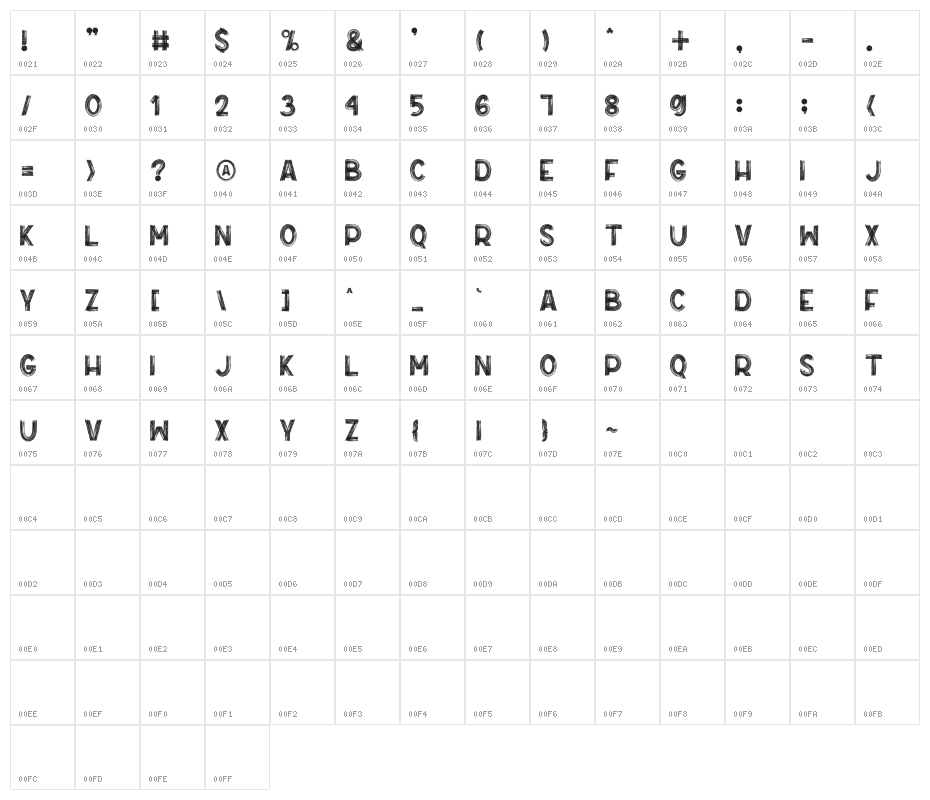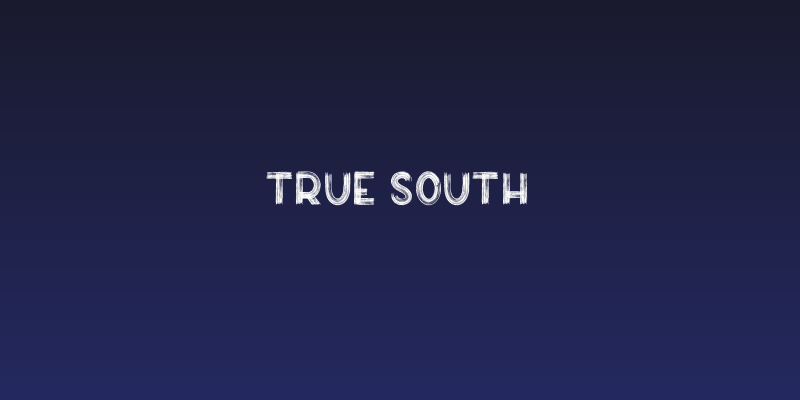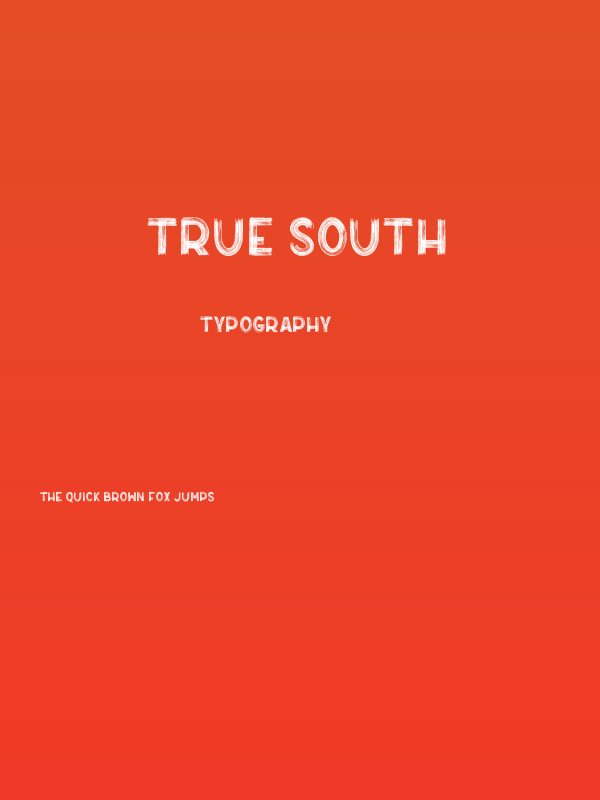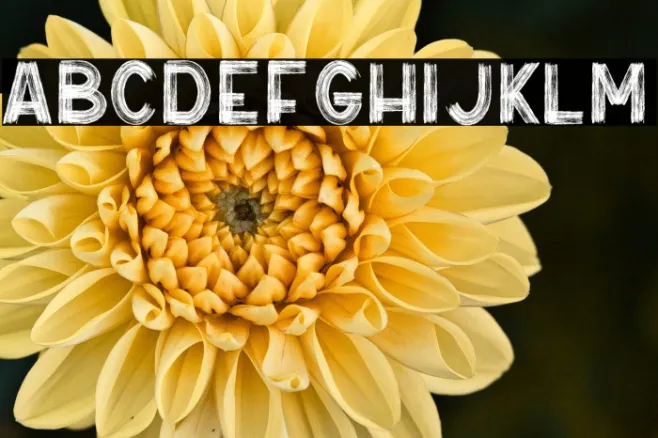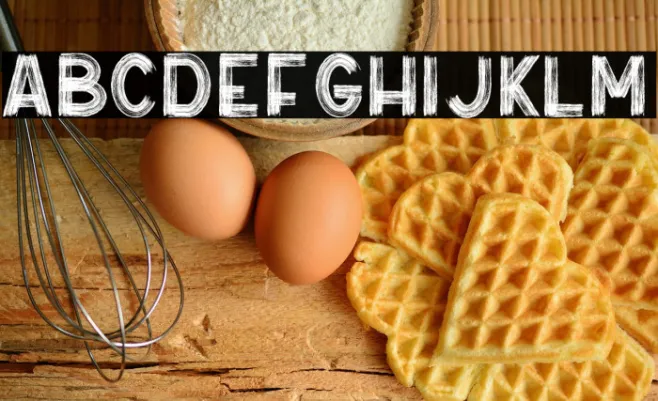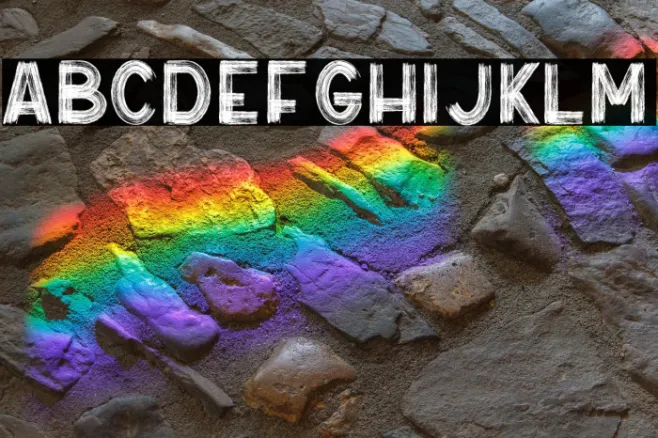
True South Font
True South Description
This font features a distinctive, hand-drawn style with a textured, brush-like appearance. Each character is crafted with uneven strokes, giving it a dynamic and artistic feel. The letters are bold and slightly condensed, with a playful yet edgy aesthetic. The uppercase and lowercase letters maintain a consistent style, while the numbers and special characters complement the overall design. This font's unique texture and irregularity make it stand out, adding a creative touch to any project.
| Overall Style | Artistic, Creative |
| Use Case | Headlines, Posters, Branding |
| Proposed Projects | Ideal for artistic projects, posters, branding, and any design requiring a creative, handmade look. |